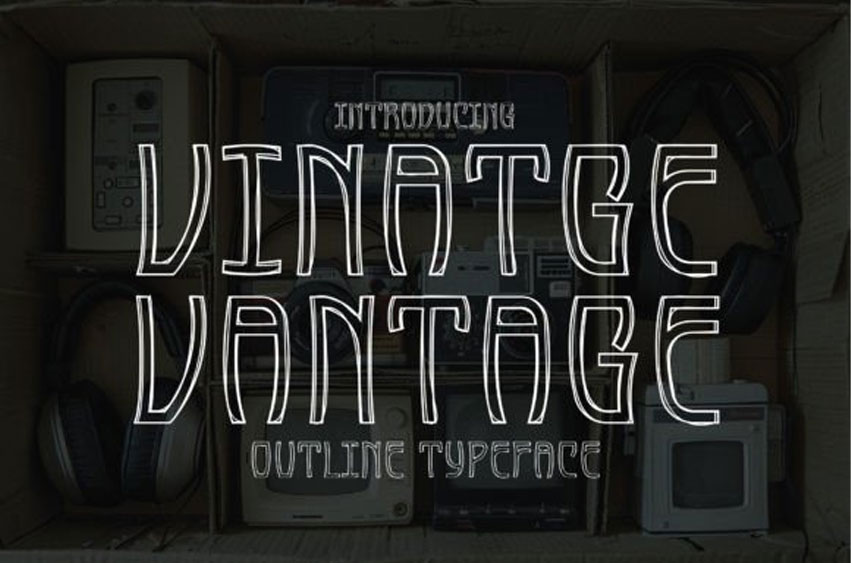
Vintage Vantage Font
Vintage Vantage Font is a distinguished outline-themed typeface that brings the elegance of the past into the present.
Drawing inspiration from antique designs, Vintage Vantage merges classic beauty with modern sophistication, making it the perfect choice for those seeking to add a touch of refinement to their projects.